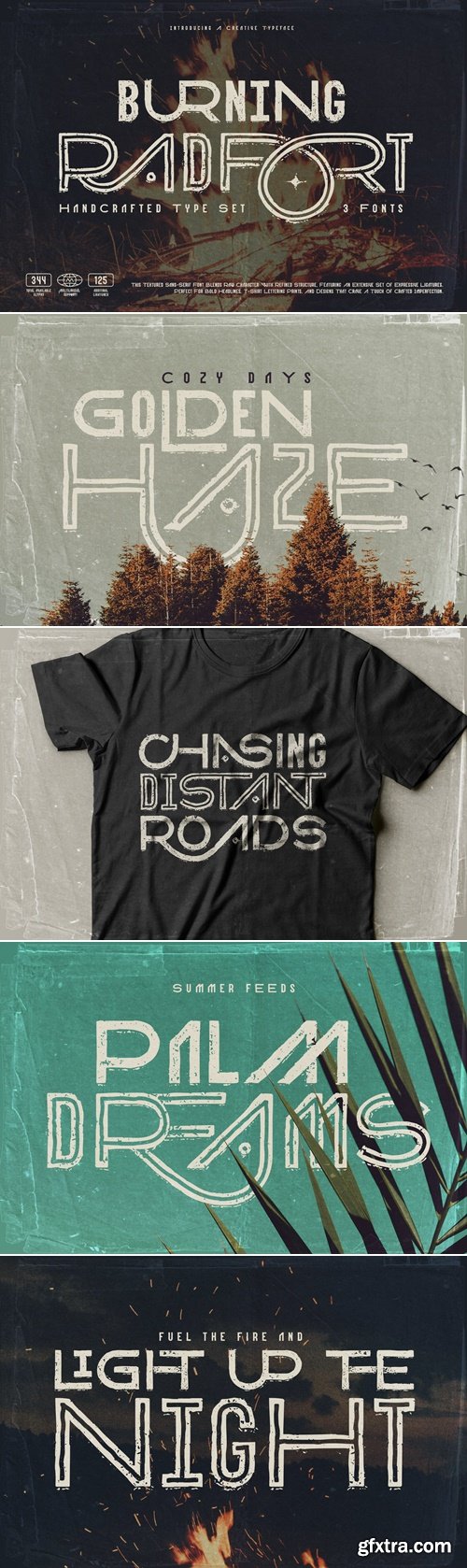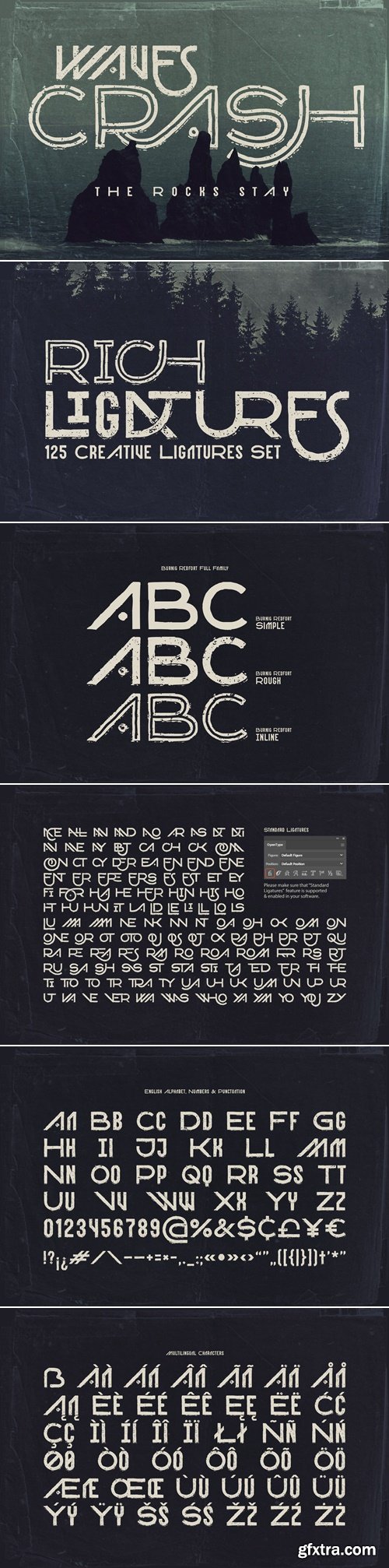
- Burning Radfort is a handcrafted, textured sans-serif typeface that blends raw grit with refined structural balance. Designed with an expressive, distressed finish, each letterform captures a sense of bold imperfection—gritty strokes, subtle erosion, and industrial-inspired curves give it a personality that feels both rebellious and intentional. The typeface includes three font variations, 344 total glyphs, and 125 dynamic ligatures, offering creative flexibility and visual diversity in every composition. Perfect for bold headlines, music and streetwear branding, poster layouts, merchandise, and editorial projects, Burning Radfort delivers a powerful typographic presence with a rugged, authentic voice that commands attention in any bold or alternative design context.
Font Category: Sans-serif – It has no traditional serif details, offering a clean and modern base structure. Display – Designed for large sizes such as headlines, posters, or t-shirt prints—not body text. Textured/Distressed – The surface of the letterforms includes a grunge-like, eroded effect to simulate hand-drawn or worn edges. Handcrafted – It has an intentionally imperfect, handmade look with organic variations in stroke and form.